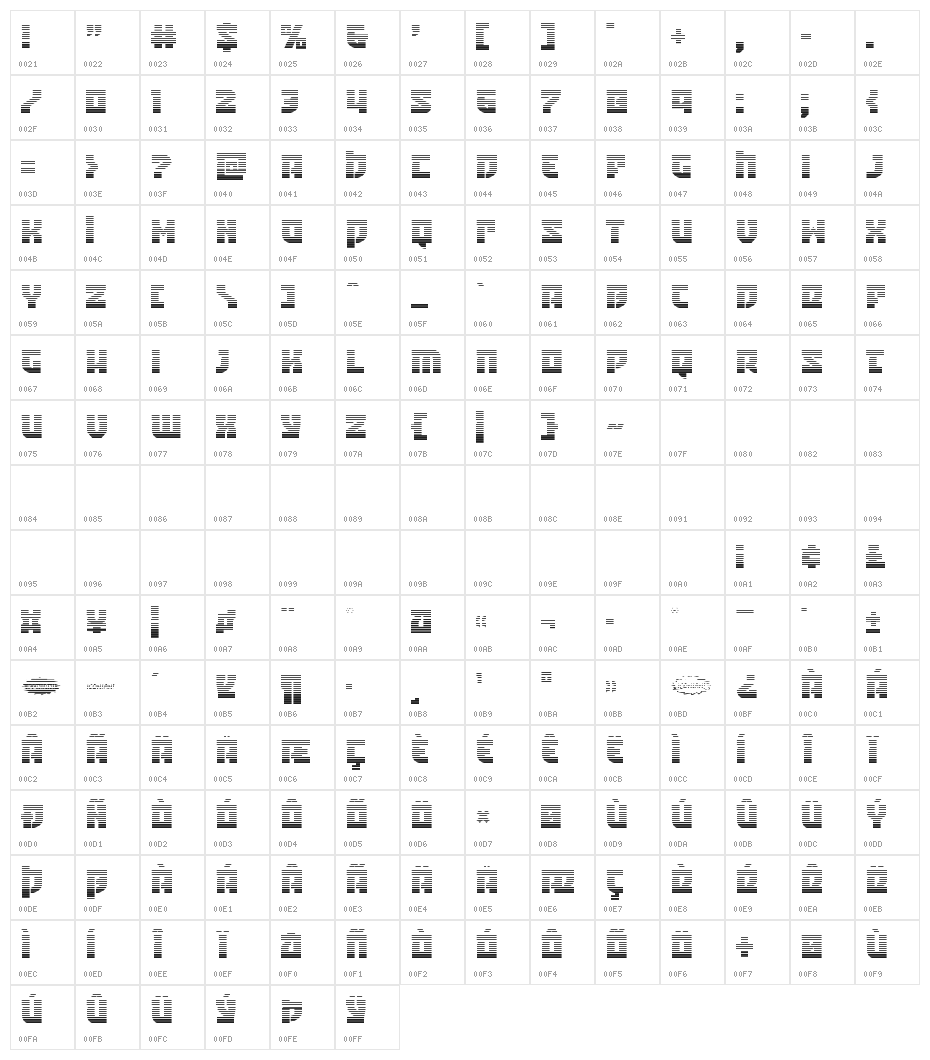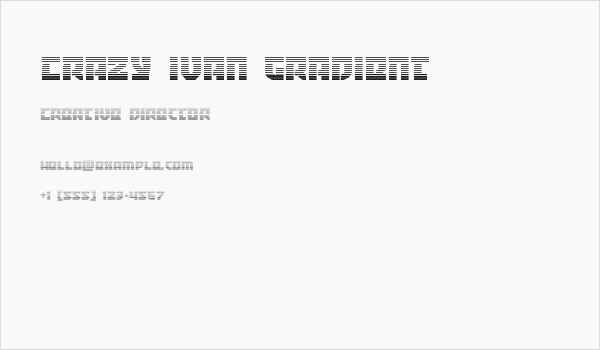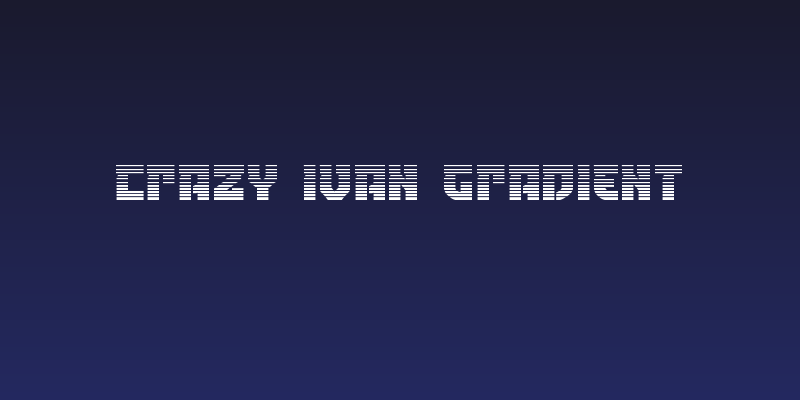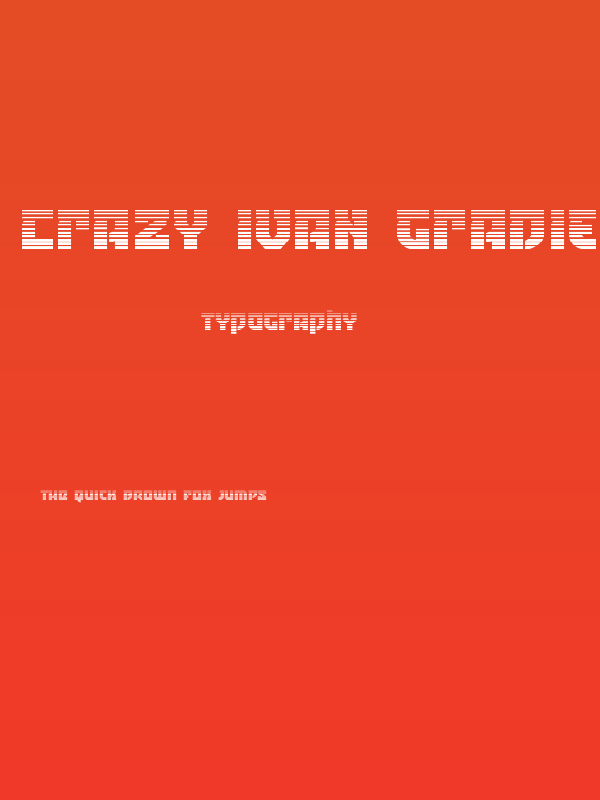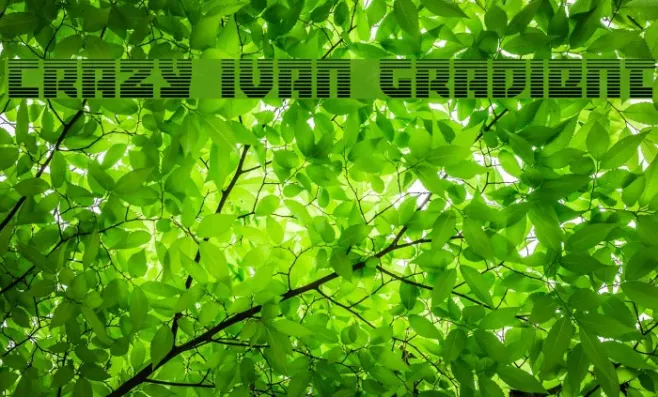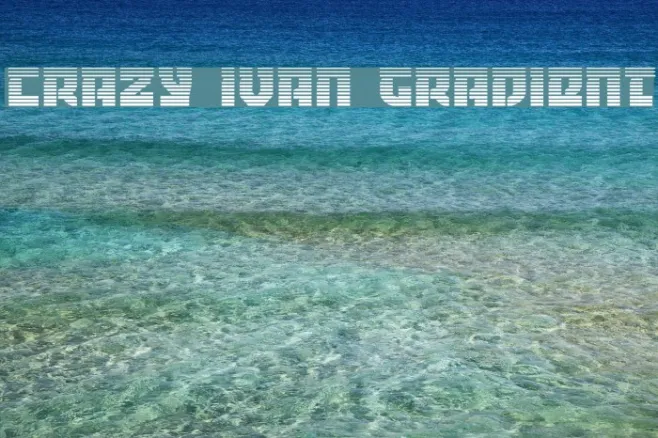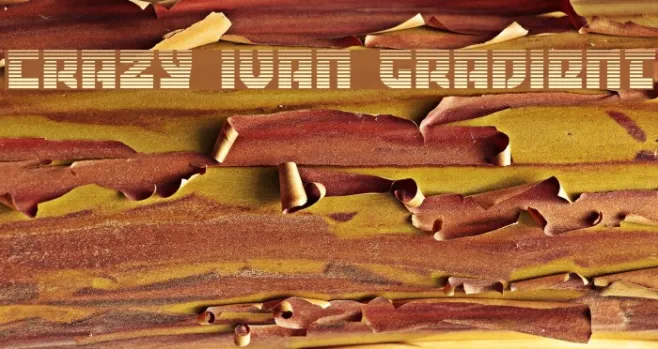
Crazy Ivan Gradient Font
Crazy Ivan Gradient Description
This font features a bold, geometric design with a unique striped pattern that creates a sense of movement and depth. The uppercase and lowercase letters maintain a consistent width, giving it a monospaced appearance, while the horizontal lines add a dynamic, modern touch. The numerals and special characters follow the same design principles, ensuring uniformity across all glyphs. This font's distinct style makes it ideal for projects that require a futuristic or tech-inspired aesthetic.
| Proposed Projects | Ideal for tech branding, futuristic posters, video game titles, and digital media projects. |